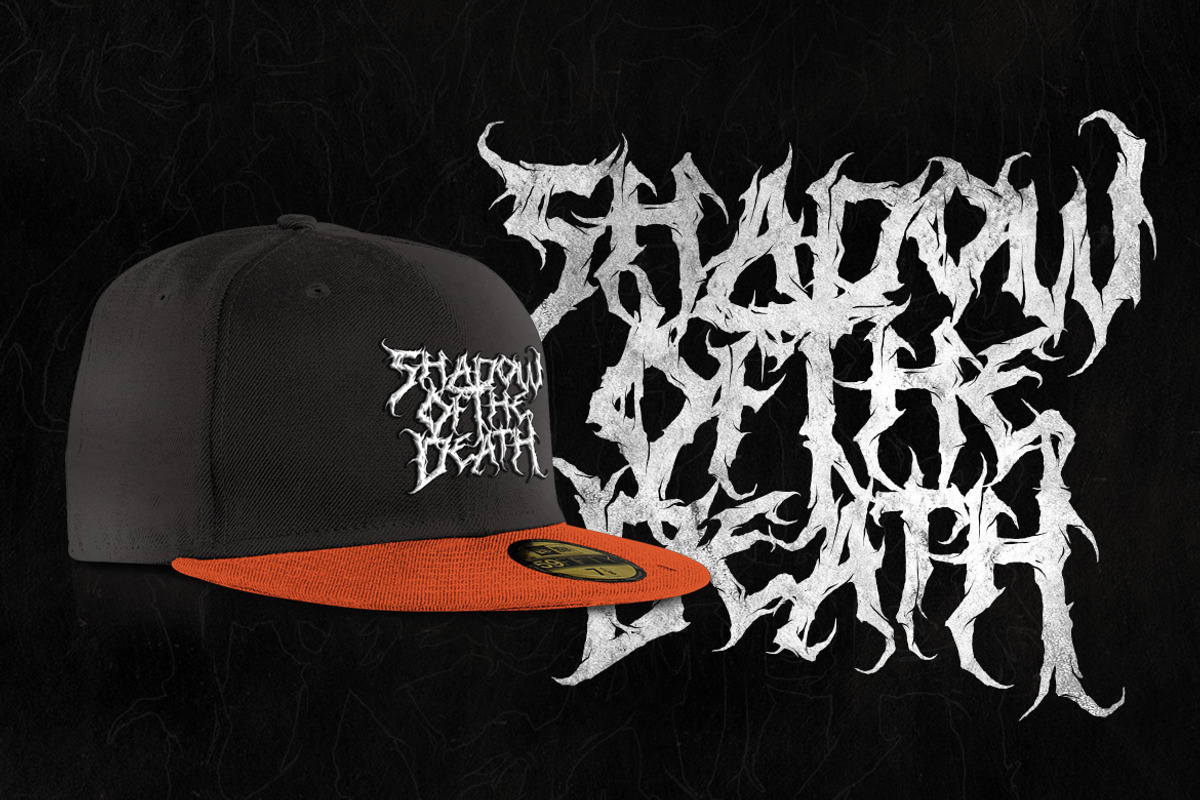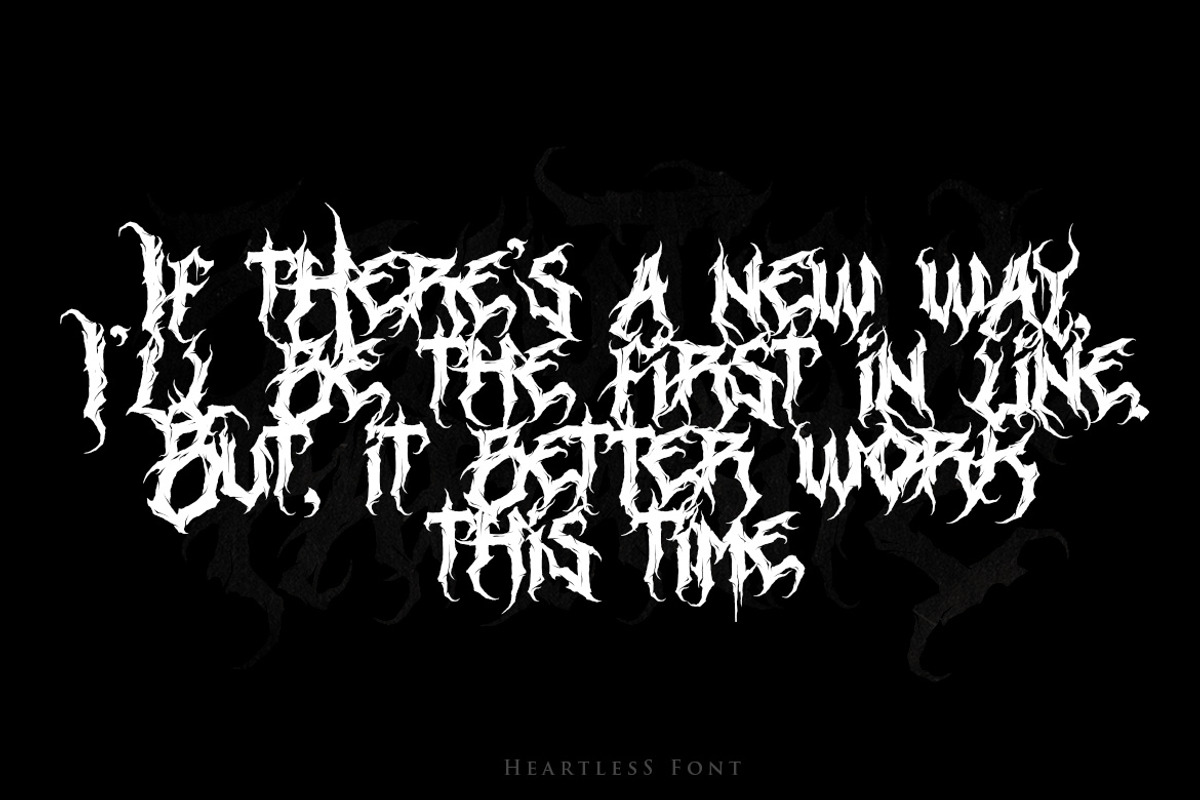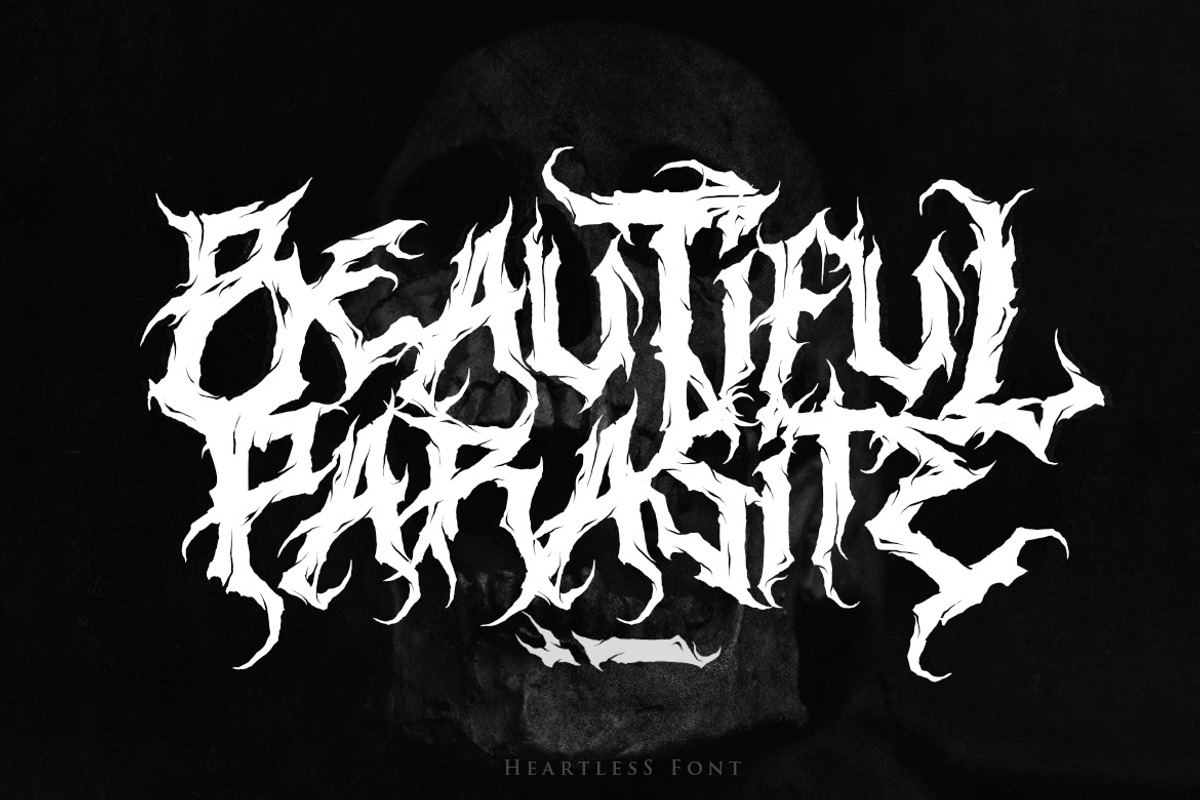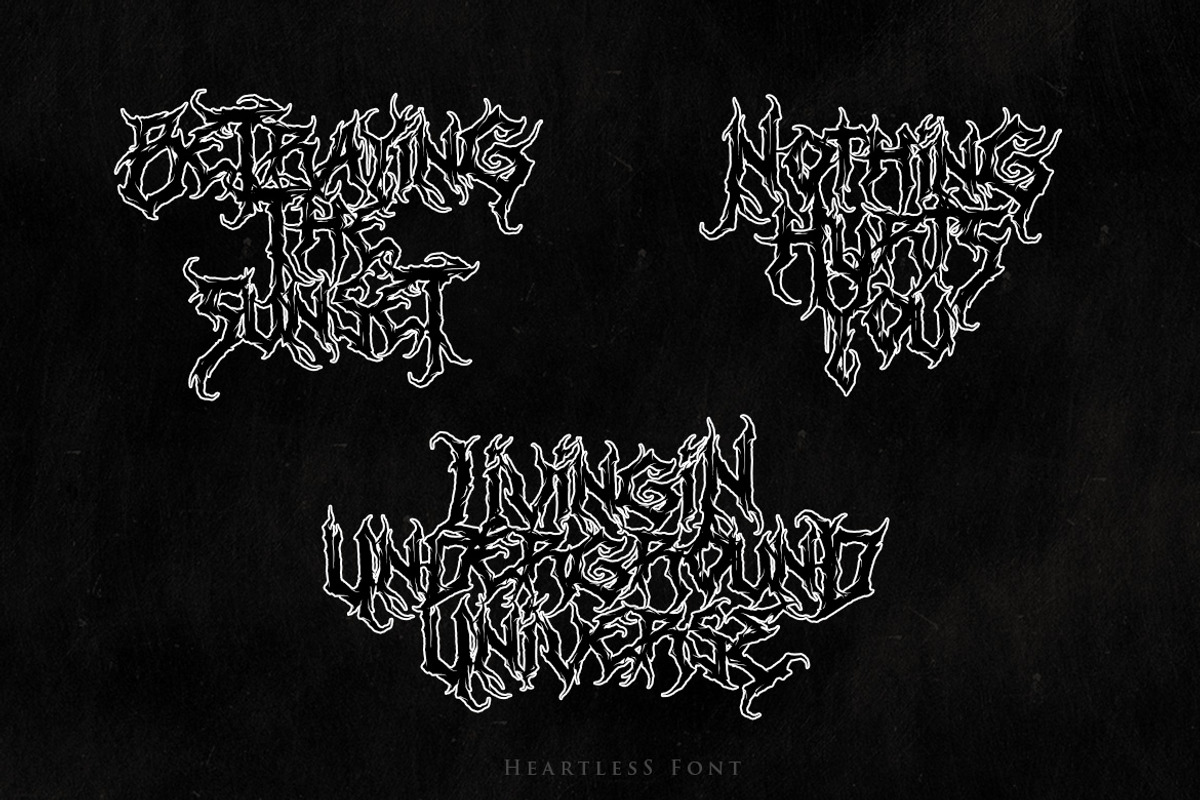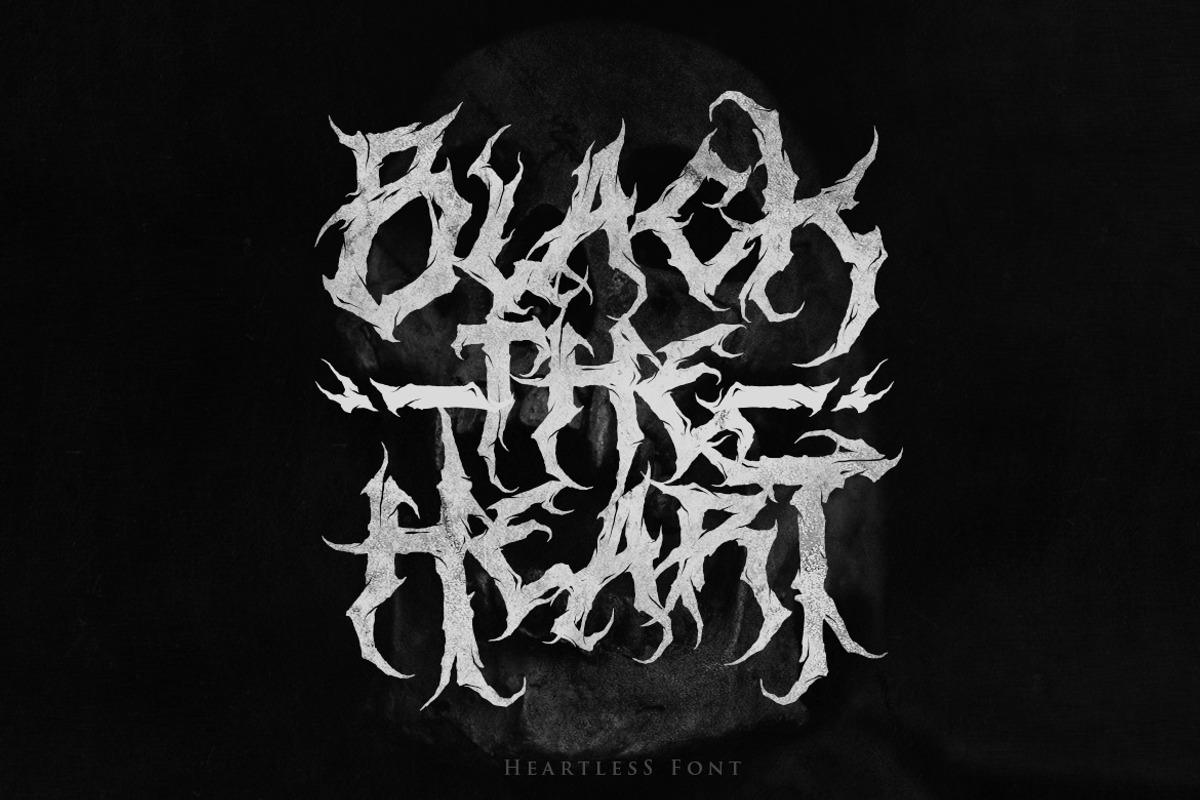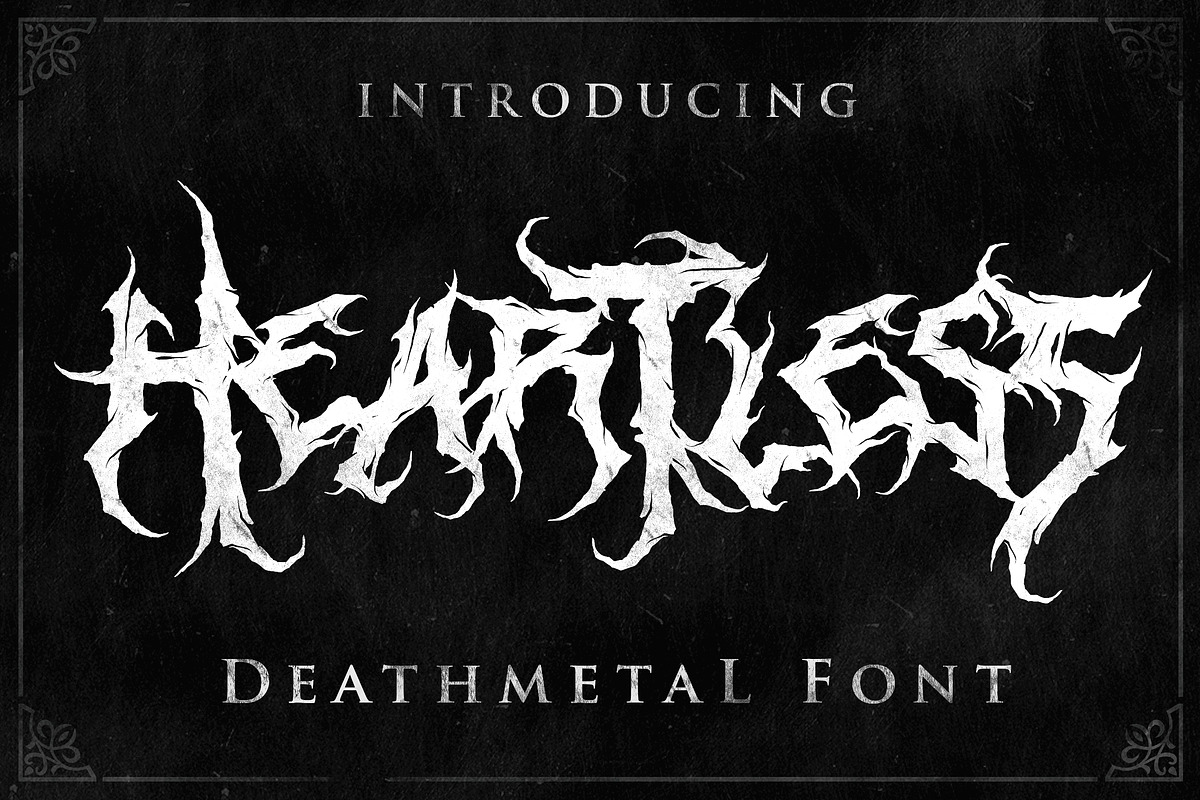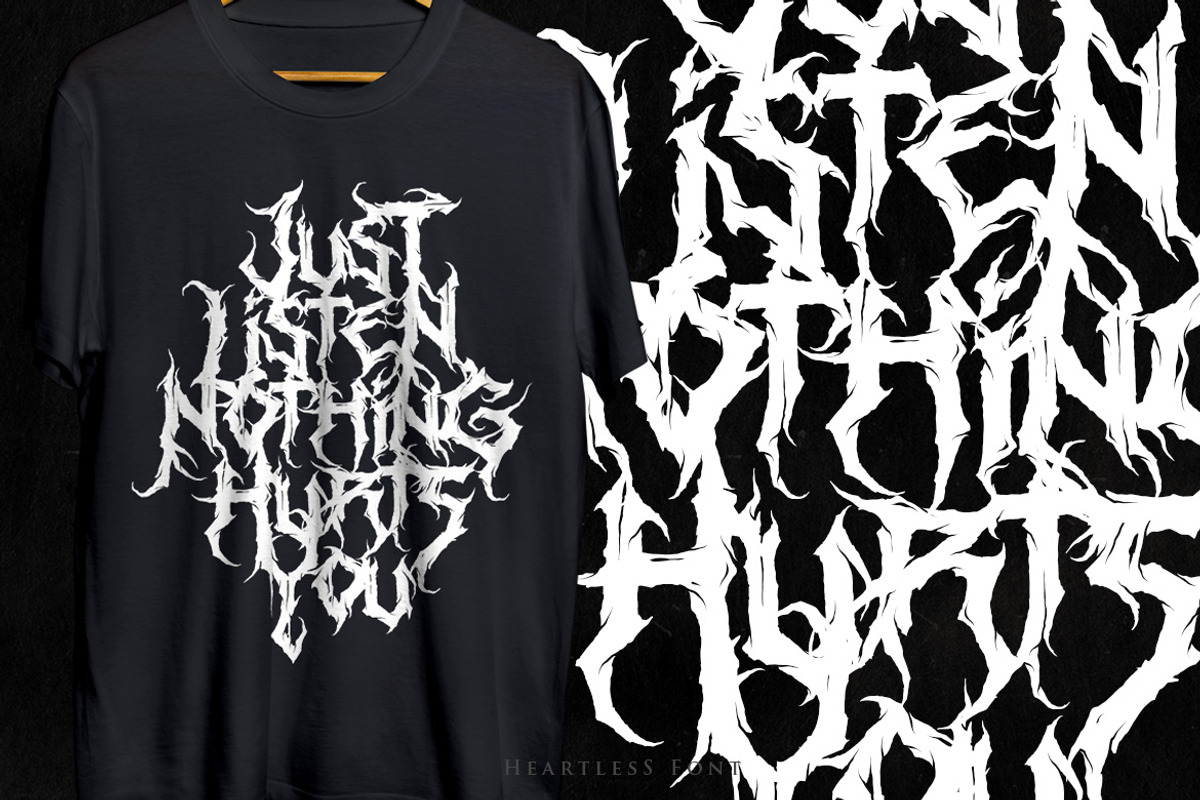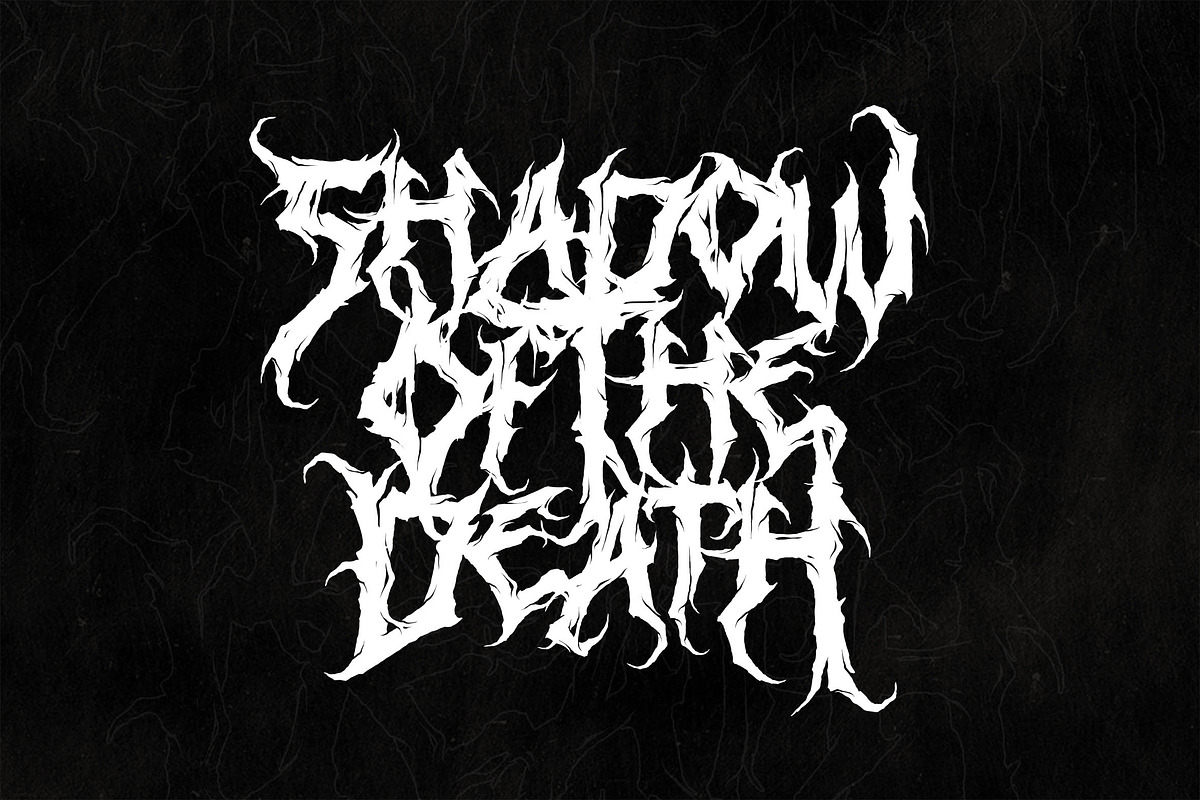
Heartless - Premium Death Metal
Heartless is awesome death metal font. Comes with Uppercase and lowercase characters. This font is great for any gore/metal/brutal design purposes. Heartless is awesome for your logo, your band, for merchandise, for clothing, and movie title/poster